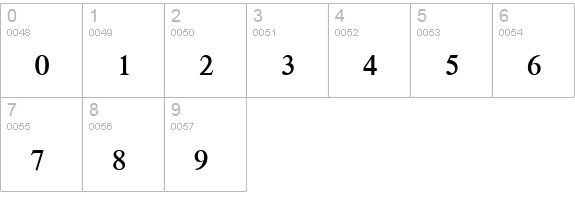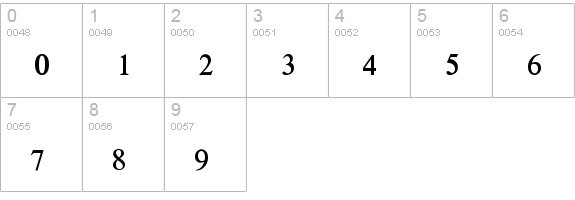
Introducing Rod font, a modern and stylish typeface perfect for a wide range of design projects. With its sleek lines and contemporary look, Rod font is sure to make your text stand out. This versatile font is ideal for logos, branding, posters, signage, and more. But the best part? Rod font is completely free to download at FontsMarket.com. That's right, you can elevate your designs with this high-quality font without breaking the bank. Don't miss out on the opportunity to add Rod font to your font library today!